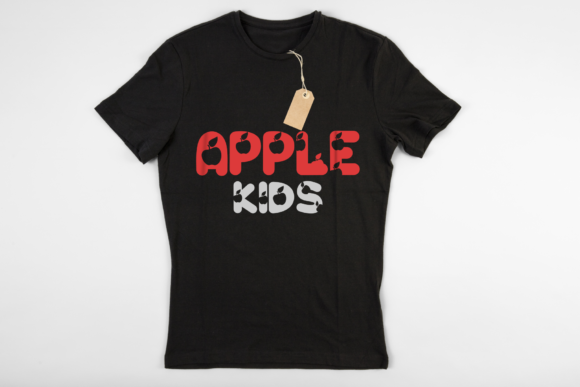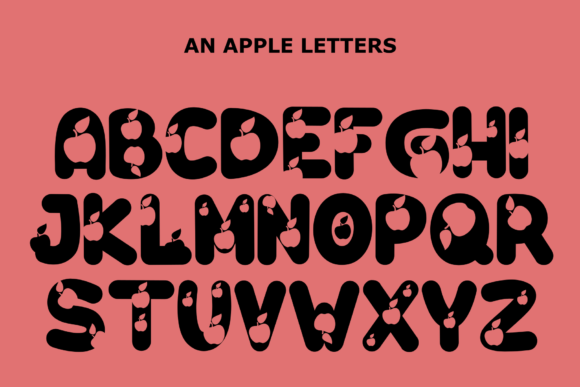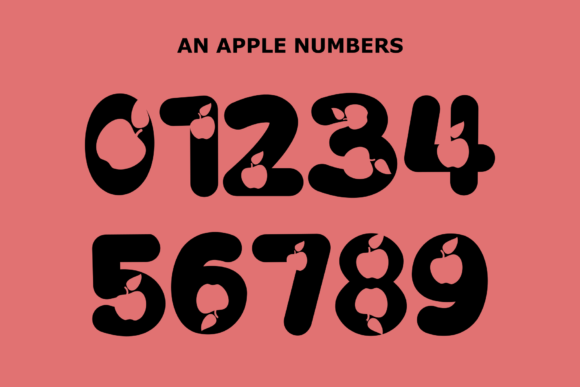
Discover the Unique Charm of An Apple Font
In the vast world of typography, few fonts manage to stand out for their uniqueness and versatility. Among them is the captivating “An Apple” font, a display font that has been making waves in the design community. This incredibly quirky and distinctive font is not just a typeface; it’s an experience. It’s a tool that can elevate your designs to the highest levels, adding a touch of whimsy and elegance. In this article, we’ll dive into the world of “An Apple” font, exploring its features, applications, and why it has become a favorite among designers and crafters alike.
The Essence of An Apple Font
“An Apple” font is more than just a collection of letters; it’s a statement. Its unique design makes it incredibly versatile, suitable for a wide range of projects. Whether you’re working on a branding campaign, a packaging design, or a digital project, this font can add that extra oomph needed to make your work stand out. Its quirky yet elegant appearance makes it perfect for designs that aim to convey a sense of creativity and sophistication.
Features of An Apple Font
- Unique Design: The font boasts a one-of-a-kind design that sets it apart from more traditional typefaces.
- Versatility: It can be used in a variety of design projects, from digital media to print materials.
- Elegance and Whimsy: It strikes a perfect balance between elegance and playfulness, making it suitable for a wide audience.
- Easy to Read: Despite its unique design, the font remains highly legible, ensuring your message is always clear.
Applications of An Apple Font
The versatility of “An Apple” font is one of its most appealing qualities. Here are some of the many ways you can use this font to elevate your designs:
- Branding and Logos: Create a memorable brand identity with a unique and captivating logo.
- Digital Marketing Materials: Use it in social media posts, website headers, and email newsletters to add a touch of personality.
- Packaging Design: Stand out on store shelves with eye-catching packaging that incorporates “An Apple” font.
- Art and Craft Projects: Whether you’re designing invitations, making custom vinyl decals, or creating art, this font can add a creative flair.
Why Designers and Crafters Love An Apple Font
Designers and crafters appreciate “An Apple” font for its ability to transform ordinary designs into something extraordinary. Here are a few reasons why it has become a favorite:
- Uniqueness: It offers a fresh alternative to more commonly used fonts, allowing designers to create distinctive works.
- Flexibility: It can be used in both digital and print projects, making it a versatile addition to any design toolkit.
- Emotional Connection: The font’s quirky and charming nature can help create an emotional connection with the audience, making designs more impactful.
Tips for Using An Apple Font
To make the most of “An Apple” font, consider the following tips:
- Pair it Wisely: Combine it with complementary fonts to create visual interest and hierarchy.
- Consider the Context: Ensure the font aligns with the project’s tone and message.
- Experiment with Sizes and Colors: Play with different sizes and colors to maximize its impact.
| Font Name | An Apple Font |
| Author | Bold Point |
“An Apple” font is a game-changer in the world of typography. Its unique blend of quirkiness and elegance makes it an invaluable tool for designers and crafters looking to elevate their projects. Whether you’re aiming to create a bold statement or add a subtle touch of whimsy, this font is sure to bring your designs to life. With its versatility, legibility, and charm, “An Apple” font is a must-have in any creative arsenal.